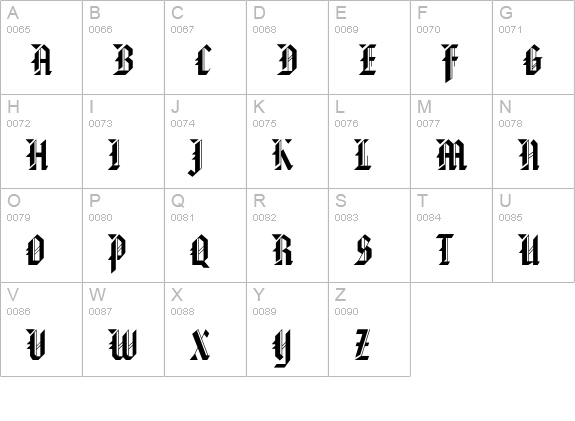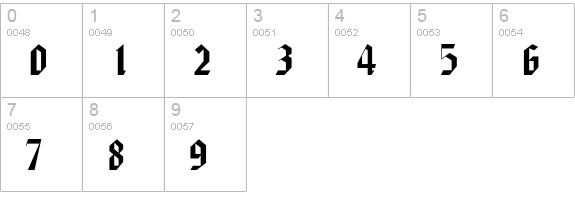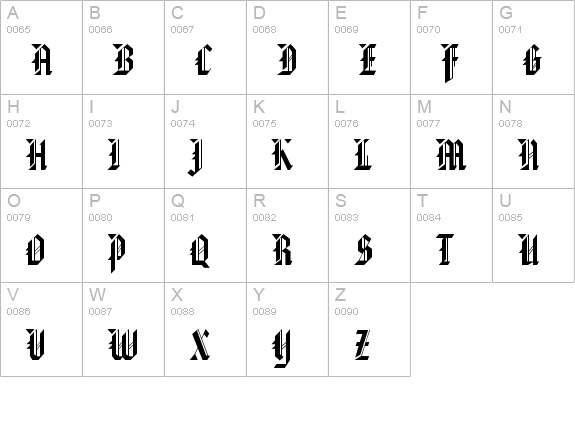
AmericanTextOpti Font Details
AmericanTextOpti font is a versatile and timeless typeface that seamlessly blends classic elegance with modern readability. With its clean lines and balanced proportions, this font is perfect for a wide range of design projects, from editorial layouts to branding materials. What sets AmericanTextOpti font apart is its unique ability to convey a sense of sophistication while maintaining a high level of legibility. Whether used for headlines, body text, or display purposes, this font exudes a sense of professionalism and refinement. And the best part? AmericanTextOpti font is available for free download at FontsMarket.com. Now you can elevate your designs with this premium font without any cost. Don't miss out on this opportunity to enhance your projects with the timeless beauty of AmericanTextOpti font. Download it today and see the difference it can make in your designs!